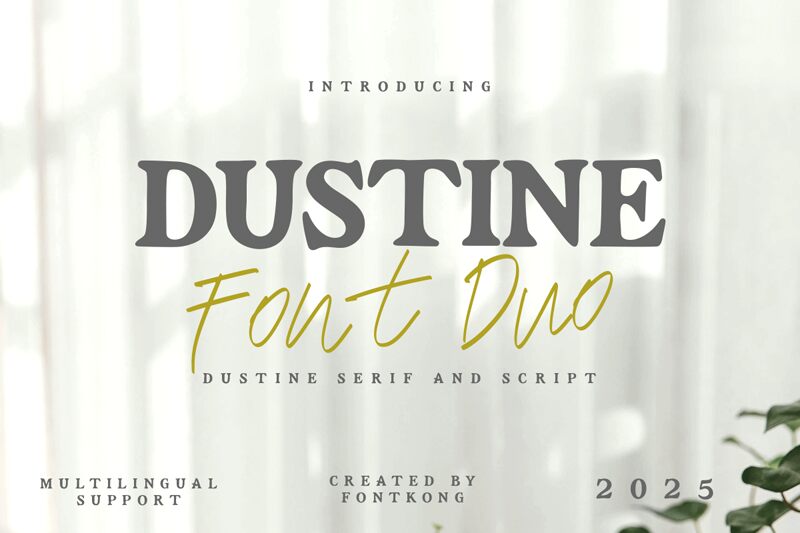
Dustine font by Kong Font is a free retro font that perfectly represents life in the modern world. It is best described as a classy and elegant font with a touch of luxury. Prepare to be awed by this font’s unique fusion of character and luxury in both display and text sizes. Dustine’s elegant character is evident in uppercase characters that retain the modern font’s vintage vibe. Special characters preserve the traditional vibe by adopting an ornamental shape with thin and thick strokes that converge at the midpoints.
This font is a good design companion if you’re creating fun designs like branding, apparel, logos, magazines, film posters, flyers, and movie graphics. The font also flaunts a unique quality when used in headlines and advertising work. Dustine font reads well in long texts thanks to its conservative artistic elements, unlike many other retro fonts. This attribute makes it suitable for stylishly designed body text for magazines, publications, promotion, or advertisements.